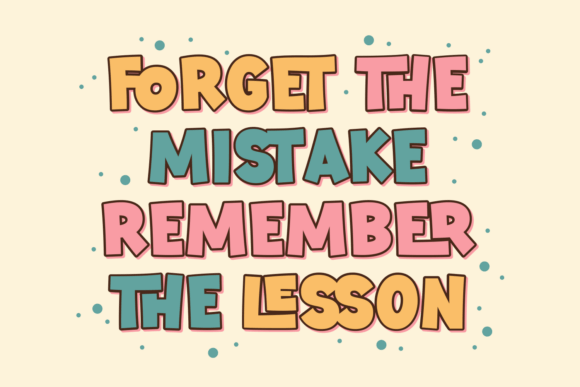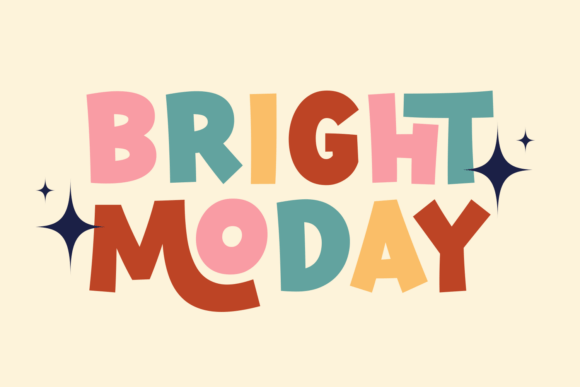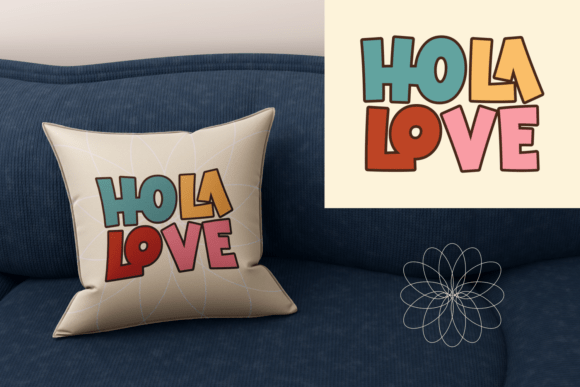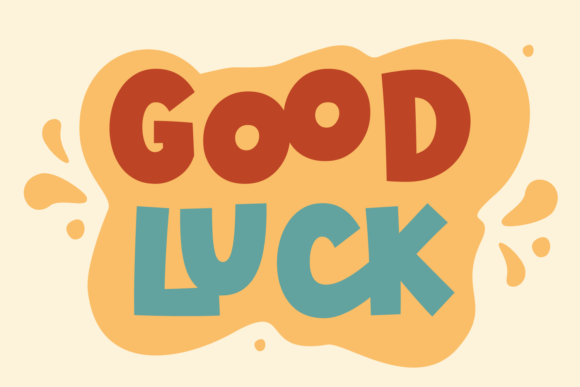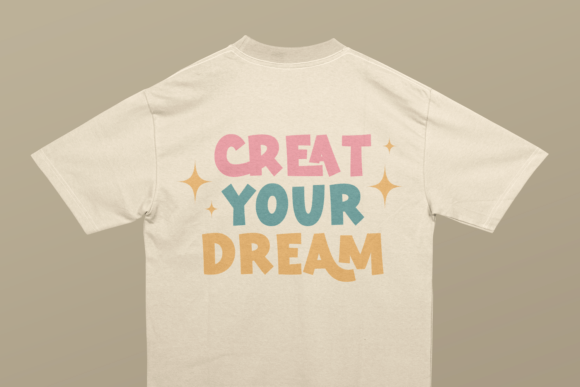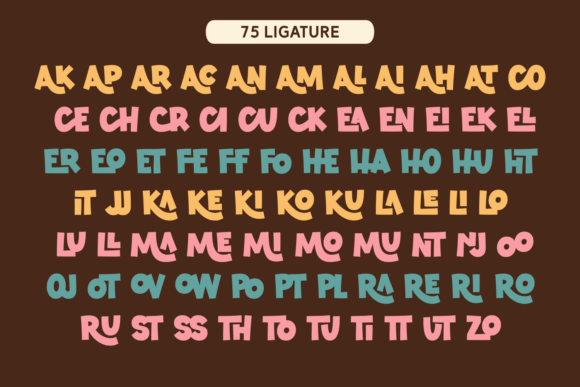
Discovering the Magic of Great Peace Font
Have you ever been working on a creative project, pouring your heart and soul into it, and suddenly, you need just the right font to bring it all together? That’s exactly what happened to me last week, and that’s when I stumbled upon the enchanting Great Peace Font. This delightful typography is more than just a pretty face – it’s a game-changer for designers looking to add a touch of whimsy to their high-quality projects.
As a design enthusiast, I can attest to the value of having a reliable and versatile font like Great Peace Font in your arsenal. Not only is it available for free download, making it a fantastic resource for designers of all levels, but its transparent background also allows for seamless integration with any design.
Key Features of Great Peace Font
- High-resolution design, ideal for large-scale prints and digital displays.
- Unique, hand-drawn style with intricate details, perfect for adding a personal touch to your design.
- High-quality design, suitable for use in a variety of contexts, including branding, advertising, and editorial content.
Honest Review: Great Peace Font
As a designer, I’m always on the lookout for high-quality fonts to enhance my creative projects. The Great Peace Font is a recent addition to my design resource library, and I’m excited to share my honest review.
- ✨ The font’s elegant and serene design makes it perfect for creating a peaceful atmosphere in any project.
- ⚠️ The font’s character set is limited, which may not be suitable for projects requiring extensive typography.
- ⚠️ The font’s legibility can be affected by certain font sizes and styles, which may require additional design adjustments.
Overall, I’m impressed with the Great Peace Font’s potential and versatility. While it may not be suitable for all design projects, it’s an excellent choice for those seeking a high-quality, free font with a unique aesthetic.
Introduction to Great Peace Font
The Great Peace Font is a free download and a high-quality design resource perfect for creative projects. It features a unique and elegant design, making it ideal for a variety of applications.
Common Use Cases for Great Peace Font
The Great Peace Font is ideal for use in a variety of creative projects, including business cards, brochures, and website headers. Its elegant design and high-quality appearance make it perfect for any project where a professional-looking font is required.